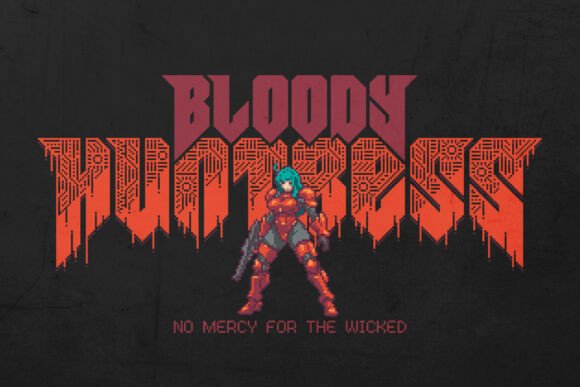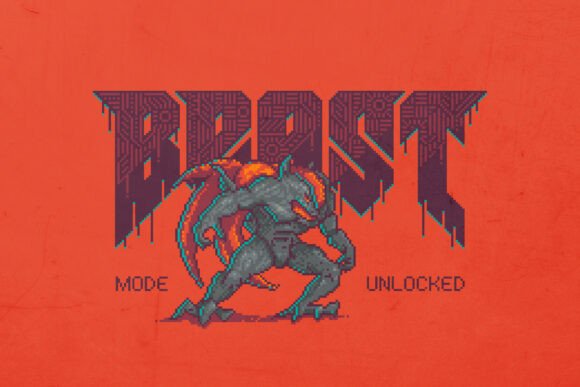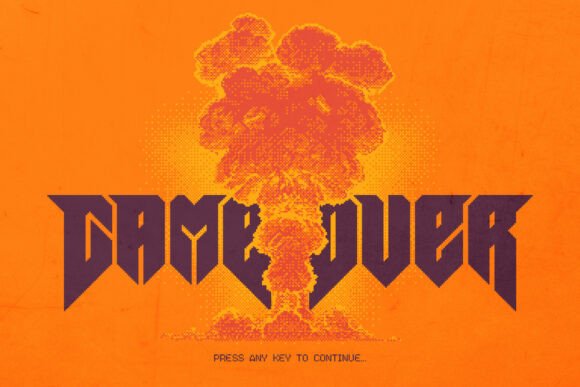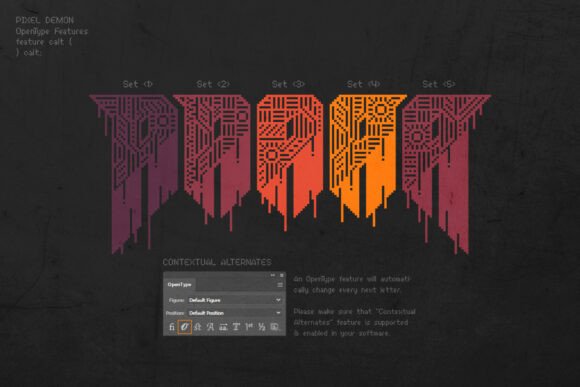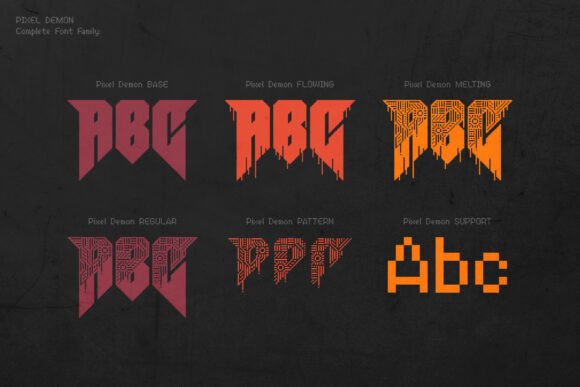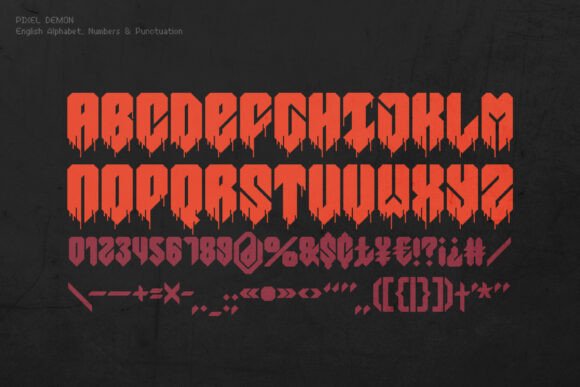
Unleashing the Raw Energy of Pixel Demon Font
Have you ever been working on a creative project and suddenly, the perfect font just doesn’t exist? You’re stuck between a bland, generic choice and a quirky, yet incompatible, design element. That’s where the Pixel Demon Font comes in – a high-quality, retro-inspired font that combines pixel precision with a gritty, vintage vibe.
Whether you’re creating a retro poster, designing a game, or working on a bold digital art piece, the Pixel Demon Font is a valuable design resource that’s sure to command attention and spark nostalgia. Its unique OpenType feature allows for automatic switching between alternate characters, creating an original effect that’s sure to elevate your design to the next level.
Key Features of Pixel Demon Font
- High-quality pixel art design for creative projects, available for free download.
- Pixel Demon Font is designed to be highly customizable, making it a valuable design resource for creative projects.
- Includes a range of characters, including uppercase and lowercase letters, numbers, and special characters.
- Perfect for video games, animations, and other digital projects that require a unique, pixelated aesthetic.
Honest Review: Pixel Demon Font
I recently stumbled upon the Pixel Demon Font and was excited to give it a try. As a designer, I’m always on the lookout for unique and high-quality design resources to elevate my creative projects. In this review, I’ll share my honest thoughts on what works well and where this font falls short.
- ✨ High-quality pixel art design that’s perfect for retro-style projects.
- ✨ Transparent background, making it easy to use in various design scenarios.
- ⚠️ Limited font styles and weights, which might not be suitable for complex designs.
- ⚠️ Not suitable for large-scale text, as the pixel art design can become pixelated.
Overall, I think the Pixel Demon Font is a great addition to any designer’s collection. It’s perfect for small-scale projects or designs that require a retro aesthetic. However, it may not be the best choice for complex or large-scale designs. If you’re looking for a unique and high-quality design resource, I’d definitely recommend checking it out – especially since it’s free to download!
The Pixel Demon Font is commonly used in retro-themed designs, such as video game-inspired art, pixel art, and nostalgic advertisements. It’s also used in creative projects, such as graphic novels, comics, and illustrations.